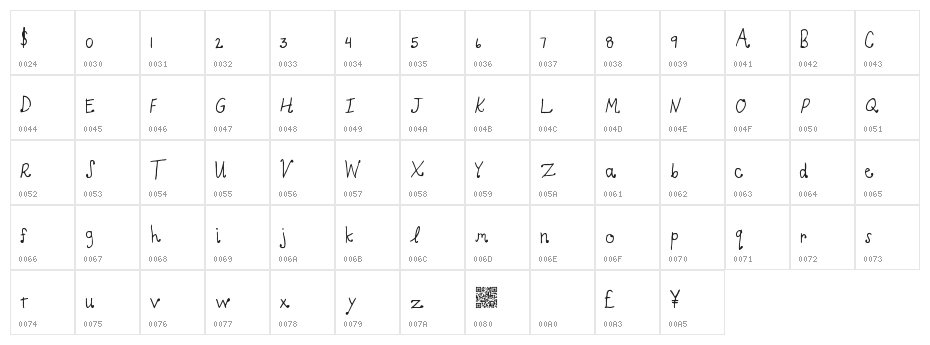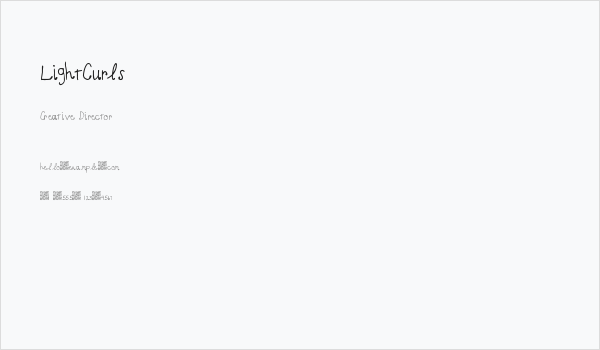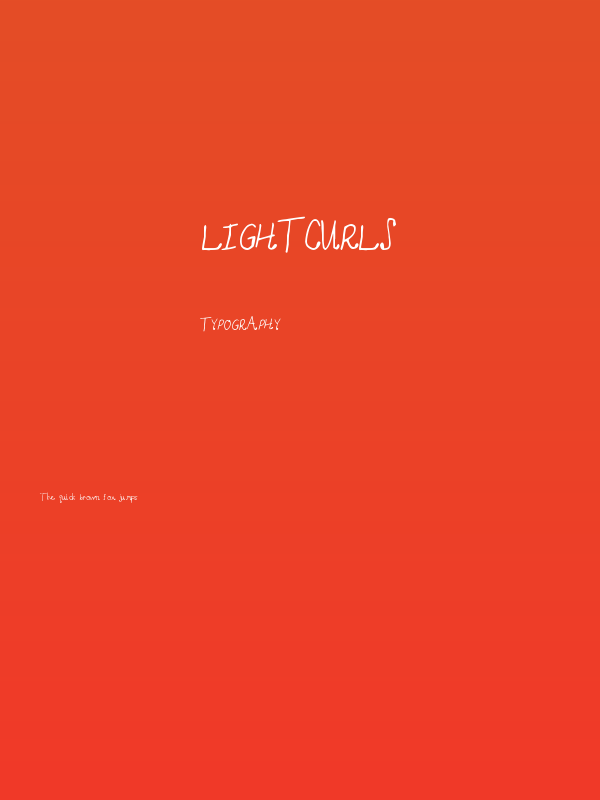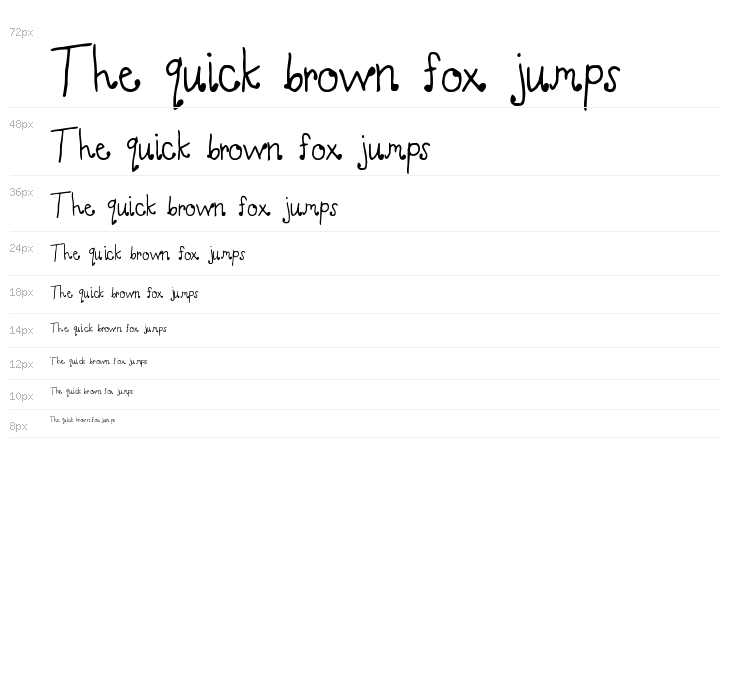
LightCurls Font
LightCurls Description
This font features a playful and whimsical design with a handwritten style that includes subtle curls and loops at the ends of the strokes. The characters are slightly irregular, giving it a casual and friendly appearance. The uppercase letters are bold and prominent, while the lowercase letters maintain a consistent flow with a touch of elegance. The numerals are clear and easy to read, matching the overall playful aesthetic. This font is perfect for projects that require a personal touch, such as invitations, greeting cards, or creative branding.